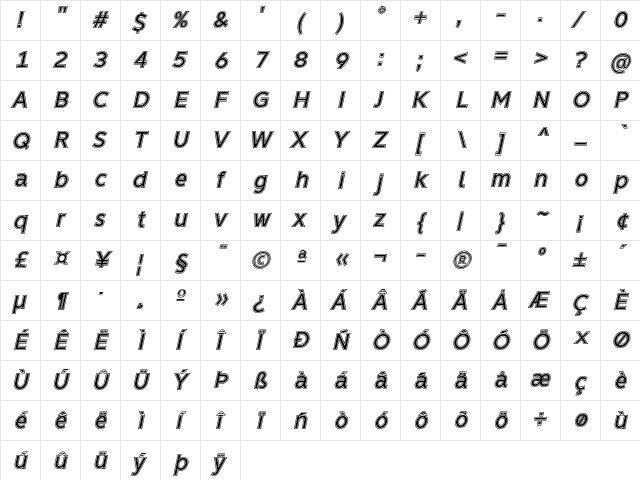
Learn Share Colaborate Inout Italic
Design Context for Learn Share Colaborate Inout Typeface
Learn Share Colaborate Inout is a composed and adaptable typeface that performs quietly and consistently across a wide range of design contexts. The dynamic lean of this cut emphasises speed and emphasis in any layout.
Pro Tip: Use Learn Share Colaborate Inout for emphasis, pull quotes, and subheadings where its slanted energy can add rhythm to the layout.